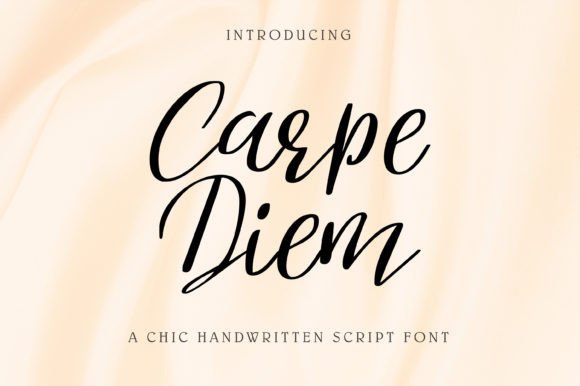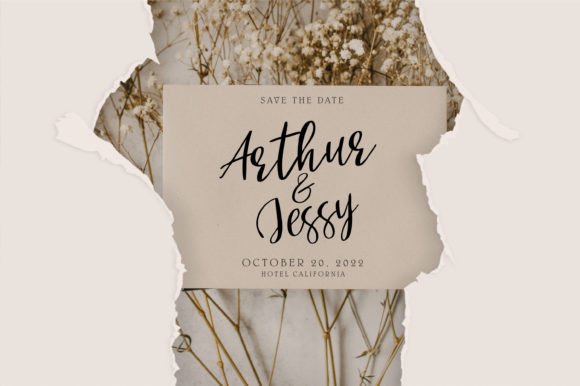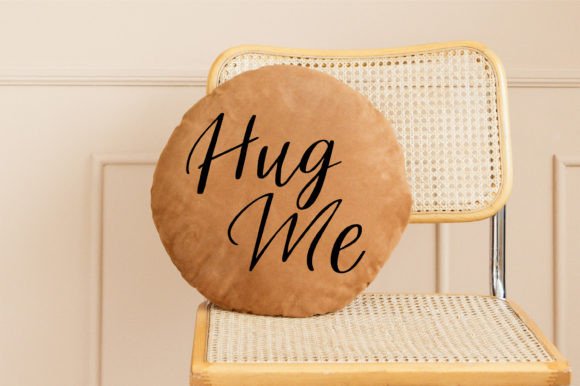
About Carpe Diem Font
Carpe Diem is a chic modern script font. Use it for any design projects that require a beautiful appearance! Carpe Diem is perfect for logos, branding, wedding invitations, business cards, greeting cards, signboards, posters, magazines, social media, planner prints, crafting, and websites.